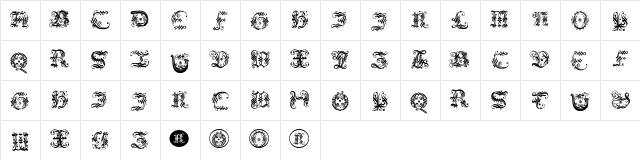
OrnamentalInitial Regular
Design Context for OrnamentalInitial Typeface
OrnamentalInitial brings ornamental detail and strong personality to headlines and identities, where visual impact matters more than quiet functionality.
Font Pairing: Pair with a clean neutral sans-serif for body copy to let OrnamentalInitial's character lead without overwhelming the composition.
Pro Tip: Use OrnamentalInitial exclusively at display sizes — it was designed to be seen, not read at length. Let a neutral companion handle body copy.